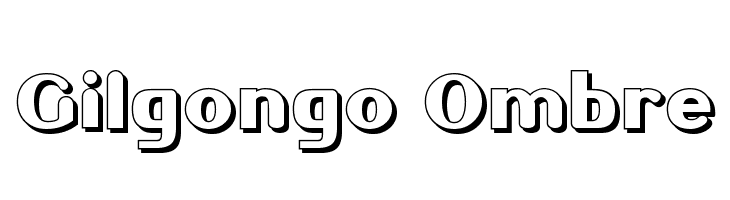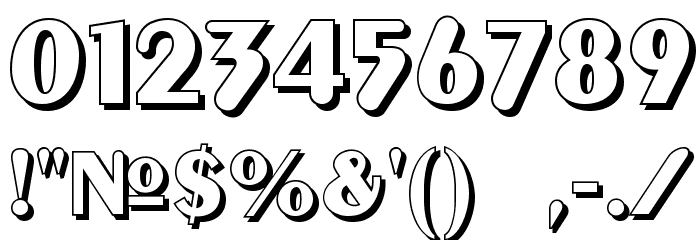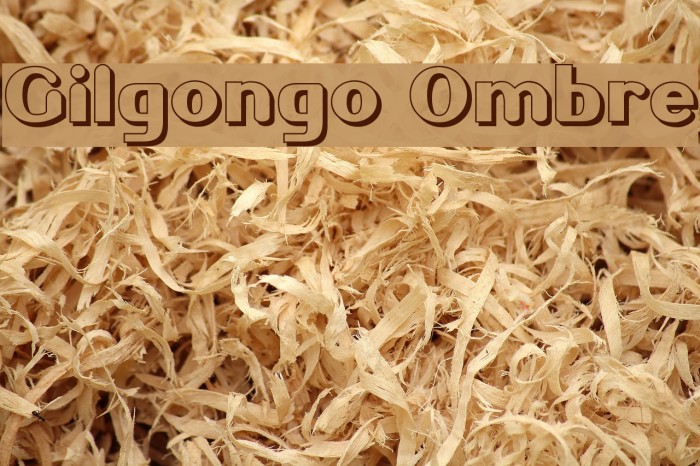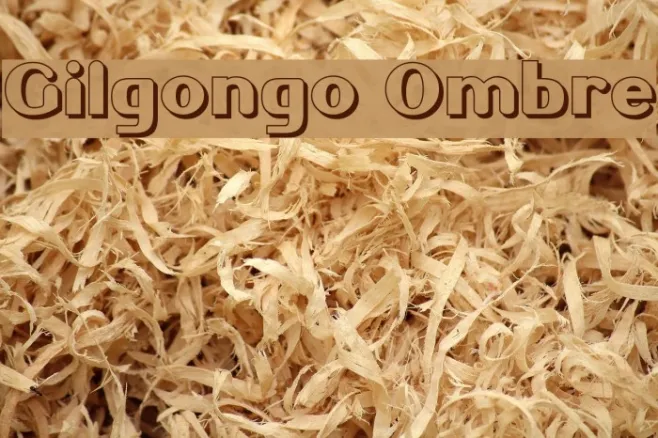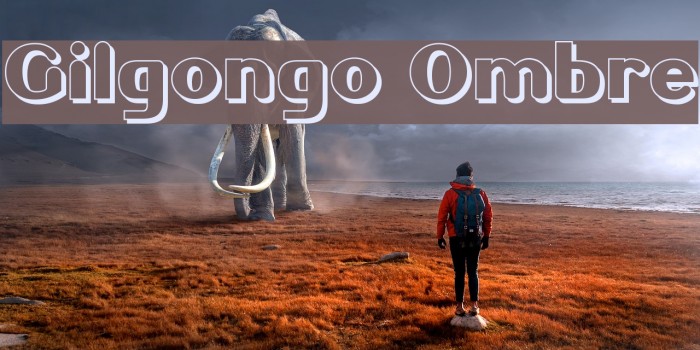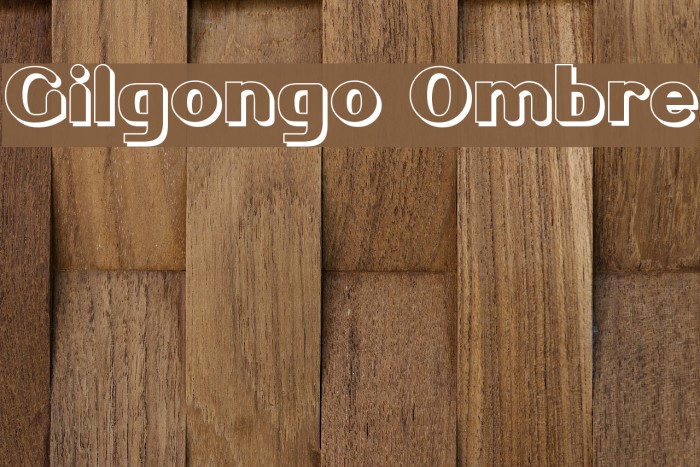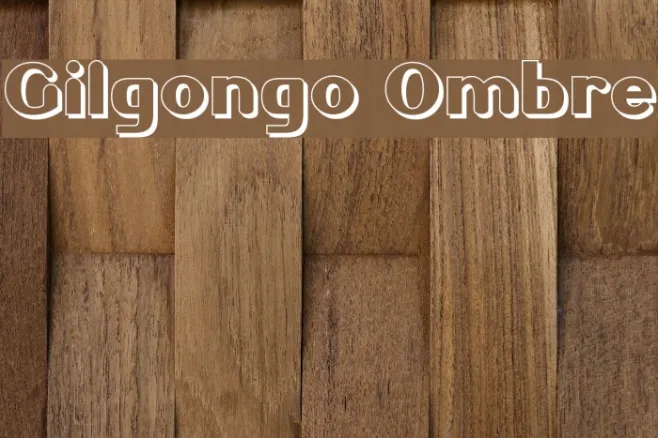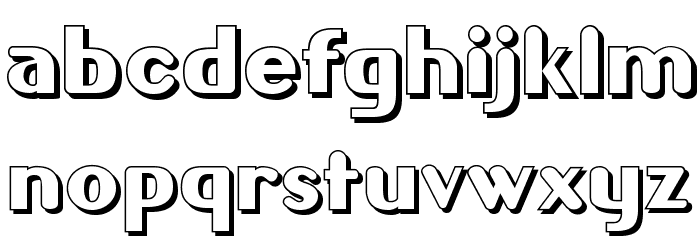
Gilgongo Ombre Font
This font features a bold, outlined style with a playful and modern aesthetic. The characters are uppercase and lowercase, with a consistent stroke width that gives a uniform appearance. The outline adds a dimensional effect, making it stand out for display purposes. The numbers and special characters maintain the same stylistic approach, ensuring a cohesive look across all glyphs. The font's design is clean and legible, suitable for various creative applications where a bold statement is desired.
A bold, outlined font with a modern and playful style.
• Proposed Projects: Ideal for headlines, posters, branding, and any design needing a bold, eye-catching typeface.
• Category: Decorative/Display
• Overall Style: Modern
• Use Case: Headlines, Logos, Posters